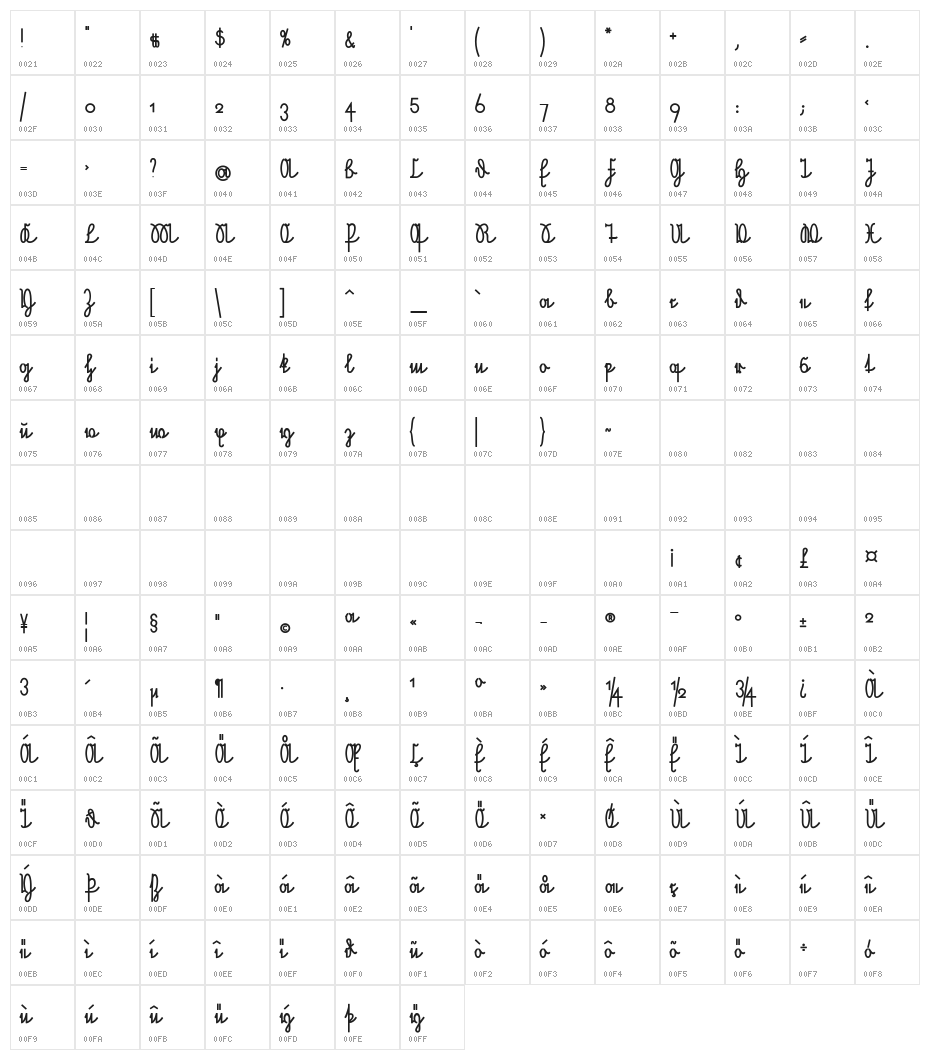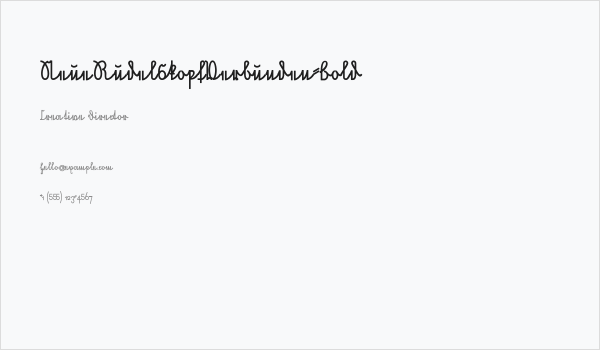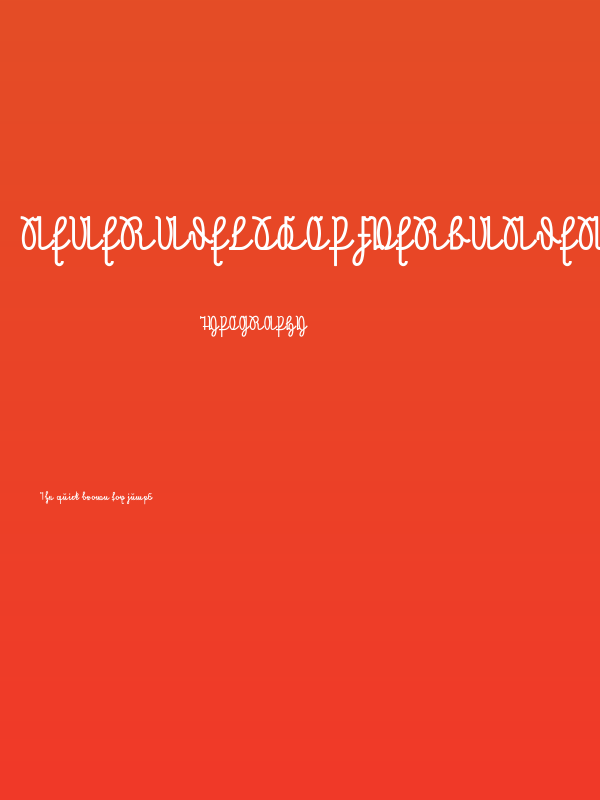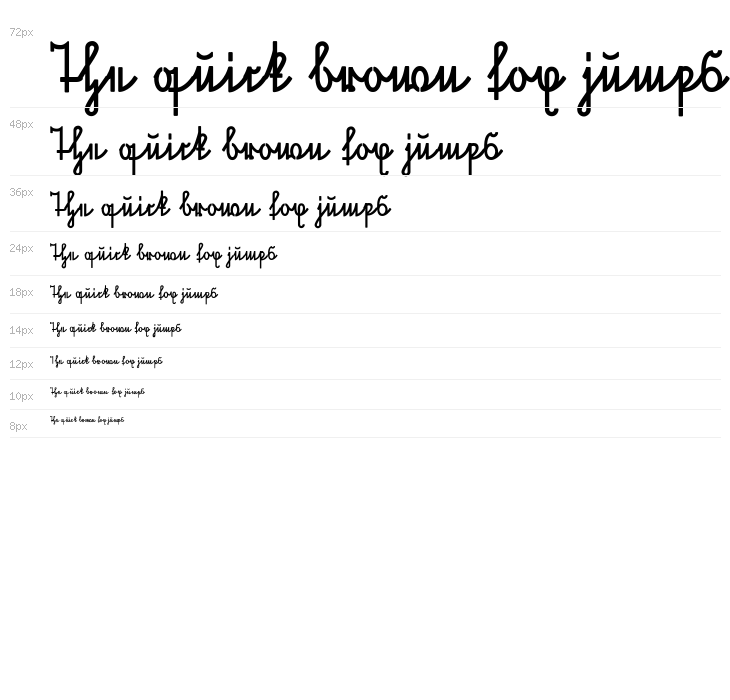
NeueRudelskopfVerbunden-Bold Font
NeueRudelskopfVerbunden-Bold Description
This font features a bold, connected script style with a flowing, cursive appearance. The characters are intricately designed with a consistent stroke width, giving it a harmonious and unified look. The uppercase letters exhibit a unique blend of loops and curves, while the lowercase letters maintain a smooth, flowing continuity. The numerals are distinct and easily readable, complementing the overall style. Special characters are creatively integrated, maintaining the font's cohesive aesthetic. This font exudes a sense of elegance and sophistication, making it suitable for various creative applications.
| Overall Style | Elegant, Decorative |
| Proposed Projects | Ideal for wedding invitations, greeting cards, branding projects, and elegant logo designs. |